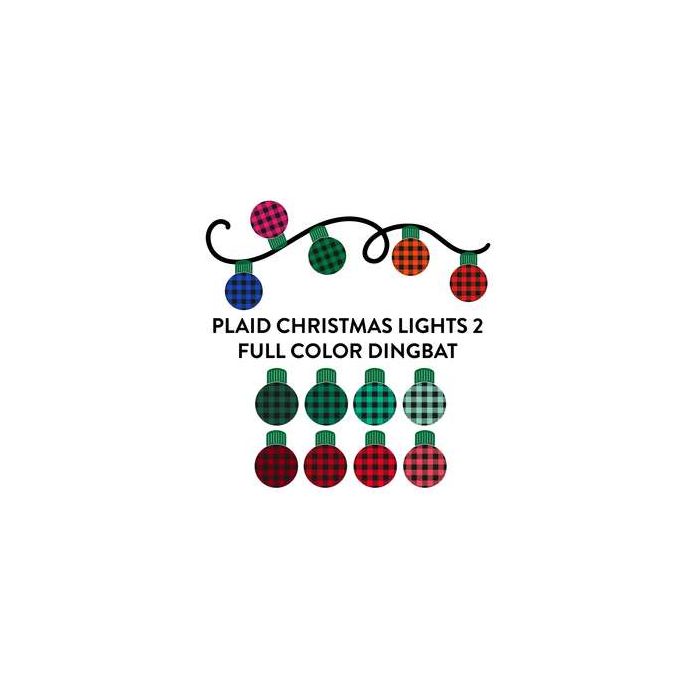
plaid christmas lights 2 full color dingbat font
This full color otf dingbat font comes with 26 different color plaid Christmas lights. To access the string, enter in number 1.